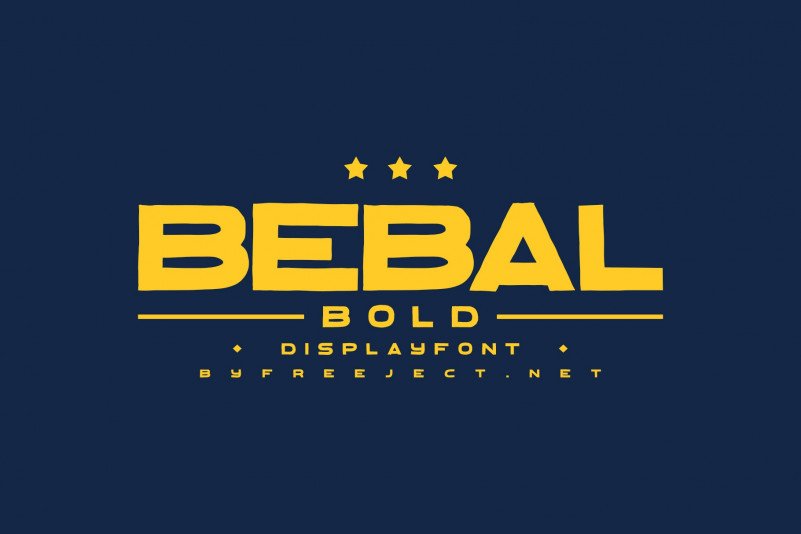
Bebal Font
Bebal Font is a modern and elegant bold sans serif typeface, a masculine vintage bold display font with a sharp bite. Inspired by the brutalism poster and minimalism design which has been trending nowadays, and gives you more chance to express your creativity. This font family brings a strong feel yet elegant look that you can use for many purposes.
Bebal bold is a font created for display needs, such as title, logotype, text cover, etc. The character of this font is fat and short. If you are looking for a precise font, then a bold block is not a precise choice. We make this font not precise and tend to have a lot of cleats on its body. but this font is good for action movie title design, rock concert poster, youth event design, etc. Download this free font on the link below.